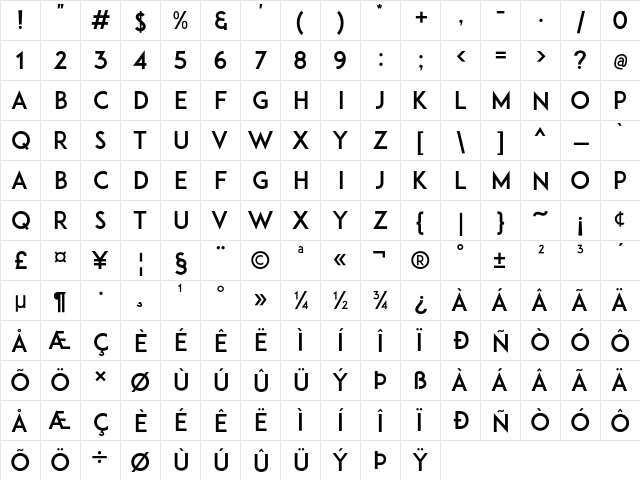
ADAM.CG PRO Regular
| Foundry | Shrenik Ganatra |
| Designer | Shrenik Ganatra |
Design Context for ADAM.CG PRO Typeface
ADAM.CG PRO offers clean, dependable letterforms without strong stylistic allegiance, making it a practical choice for designers who need flexibility.